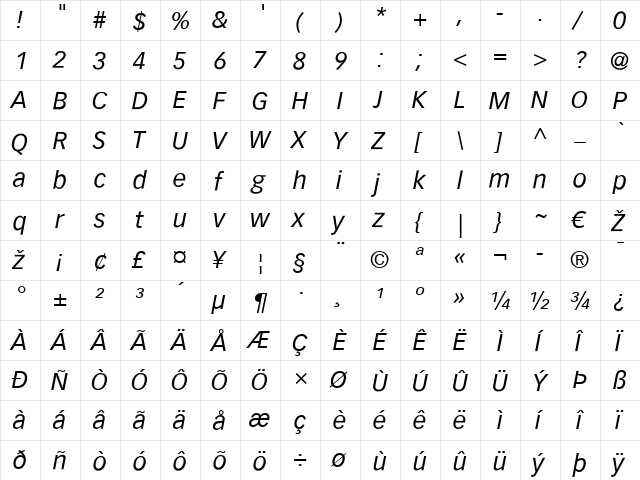
Vectora LT Roman Italic
Design Context for Vectora LT Roman Typeface
Vectora LT Roman is a composed and adaptable typeface that performs quietly and consistently across a wide range of design contexts. The slanted form adds forward momentum and visual energy. The delicate stroke weight brings airiness and refinement to layouts.
Pro Tip: Try Vectora LT Roman for annotation and caption copy alongside an upright companion — the contrast in angle creates a dynamic but ordered typographic system.